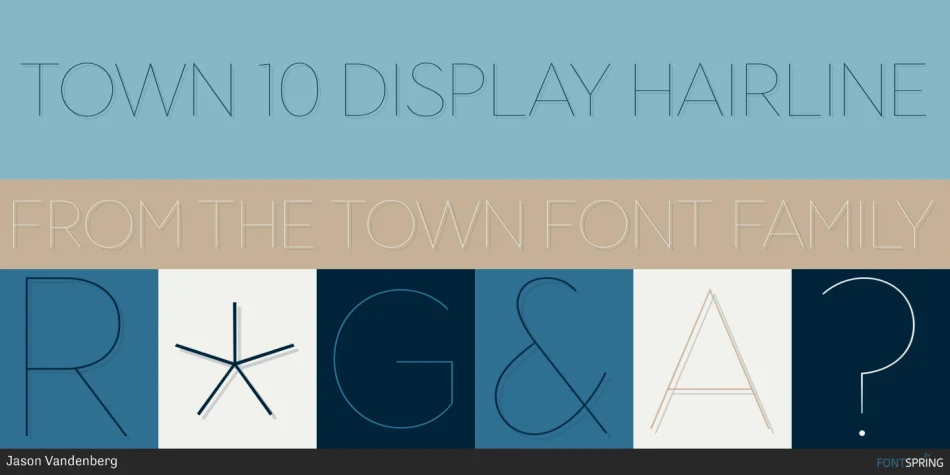
Town 10 Display Font
Town 10 Display Font is perfect for urban branding, architectural signage, city transit systems, municipal communications, metropolitan magazines, downtown business districts, civic center materials, urban development projects, city event posters, modern wayfinding systems, contemporary corporate headquarters, and metropolitan lifestyle publications.
What makes Town 10 Display Font exciting is its commanding urban presence that perfectly captures the dynamic energy and sophisticated infrastructure of modern metropolitan environments. This powerful typeface combines geometric strength with contemporary refinement, creating letterforms that speak to the ambition and progress of city life. The font's bold character and architectural precision make it ideal for projects that need to communicate authority, progress, and urban sophistication. Its distinctive presence ensures maximum impact in crowded urban environments while maintaining the clarity essential for effective public communication and wayfinding applications.
The Town 10 Display Font family includes light, regular, medium, bold, and black weights, featuring condensed variations and extended styles. The character set incorporates urban-inspired alternates, architectural elements, and metropolitan symbols that enhance the font's city character and provide designers with comprehensive urban design solutions.
Whether you're developing metropolitan brand identities, creating civic communication systems, or designing urban development materials, Town 10 Display Font Free Download delivers the authoritative presence your city-focused projects demand. This premium display font excels in large-scale applications where visibility and impact are crucial for effective urban communication and brand recognition. The font's metropolitan qualities work exceptionally well across digital displays and architectural signage, making it an essential tool for designers working in urban environments. Municipal authorities and urban development companies choose this font for its ability to communicate progress while maintaining public accessibility and professional credibility. The comprehensive character support includes multiple languages and municipal symbols, expanding its versatility for international city applications and multilingual urban communications. Professional designers appreciate its scalability from massive building signage to detailed wayfinding systems, ensuring consistent urban brand expression. When you select this exceptional display font for your metropolitan communications, you're choosing a typography solution that celebrates urban achievement and civic pride, ensuring your city communications resonate with diverse metropolitan audiences while maintaining the authoritative presence essential for effective public communication in today's complex urban environments and competitive municipal landscape.